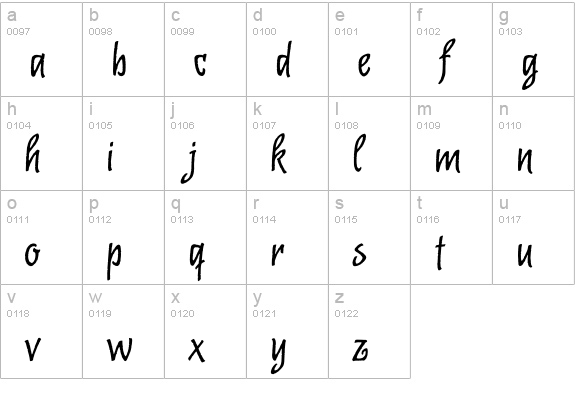
Malambo OT Font Details
Introducing Malambo OT, a stunning font that effortlessly combines elegance with a touch of modernity. This versatile typeface is perfect for adding a sophisticated flair to any design project, whether it be for branding, packaging, advertising, or editorial purposes. Malambo OT possesses a unique and captivating charm, with its graceful curves and finely crafted details. Each letter is meticulously designed to create a harmonious flow that is pleasing to the eye, making it a true standout among other fonts. What sets Malambo OT apart is not only its exquisite aesthetic, but also its accessibility. This extraordinary font is available for free, allowing designers, artists, and enthusiasts alike to elevate their creations without any financial constraints. You can easily download Malambo OT at FontsMarket.com, a trusted source for high-quality fonts. With its wide range of weights and styles, Malambo OT provides ample flexibility to cater to various design needs. From bold headlines to delicate script-like lettering, this font effortlessly adapts to any project, delivering a professional and polished result. Whether you're looking to create logos, invitations, posters, or web designs, Malambo OT will undoubtedly add a touch of sophistication and elegance. Its timeless appeal and modern versatility make it a must-have for any designer's toolkit. Don't miss out on the opportunity to enhance your creative endeavors with Malambo OT. Download it for free at FontsMarket.com and unlock a world of limitless design possibilities.